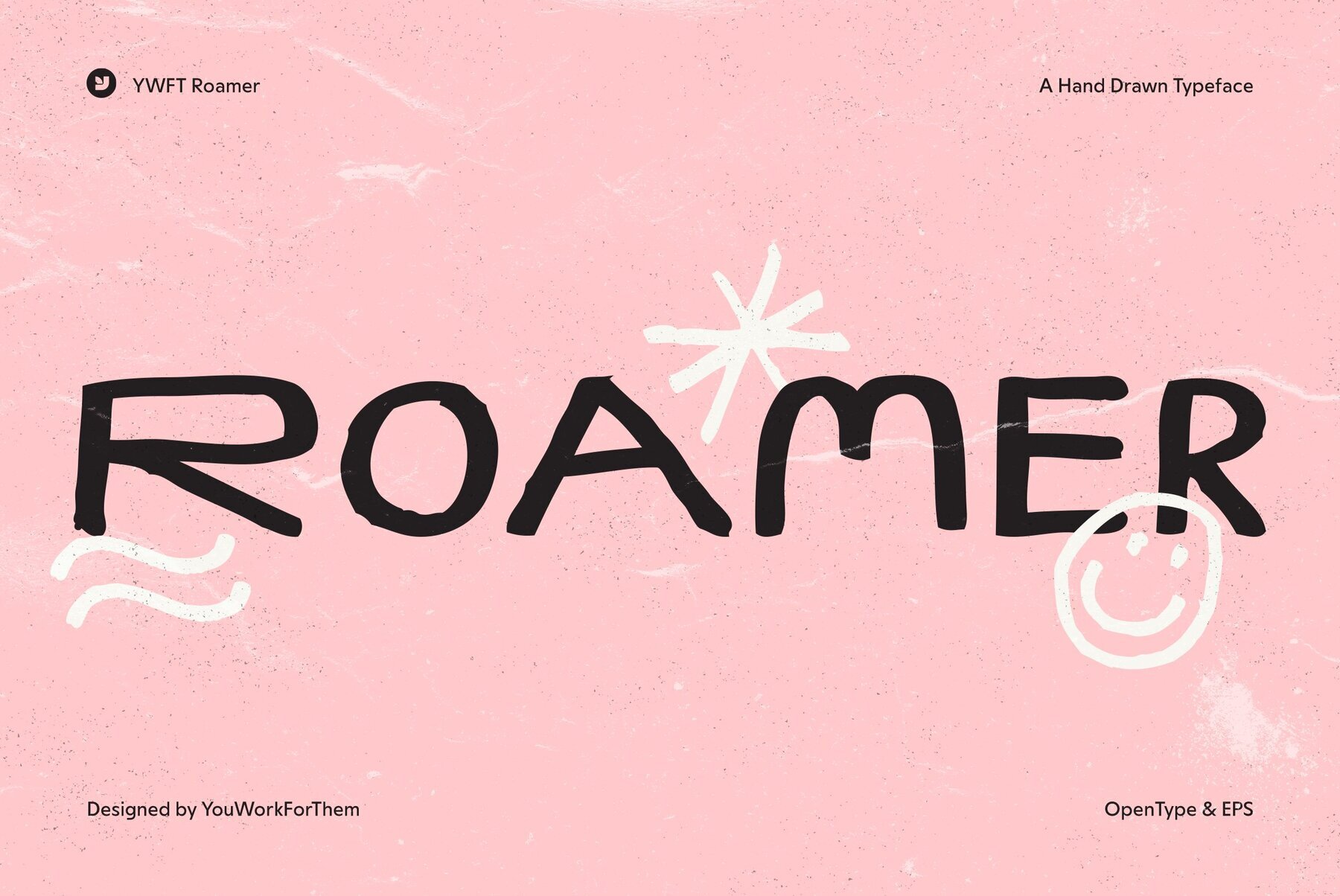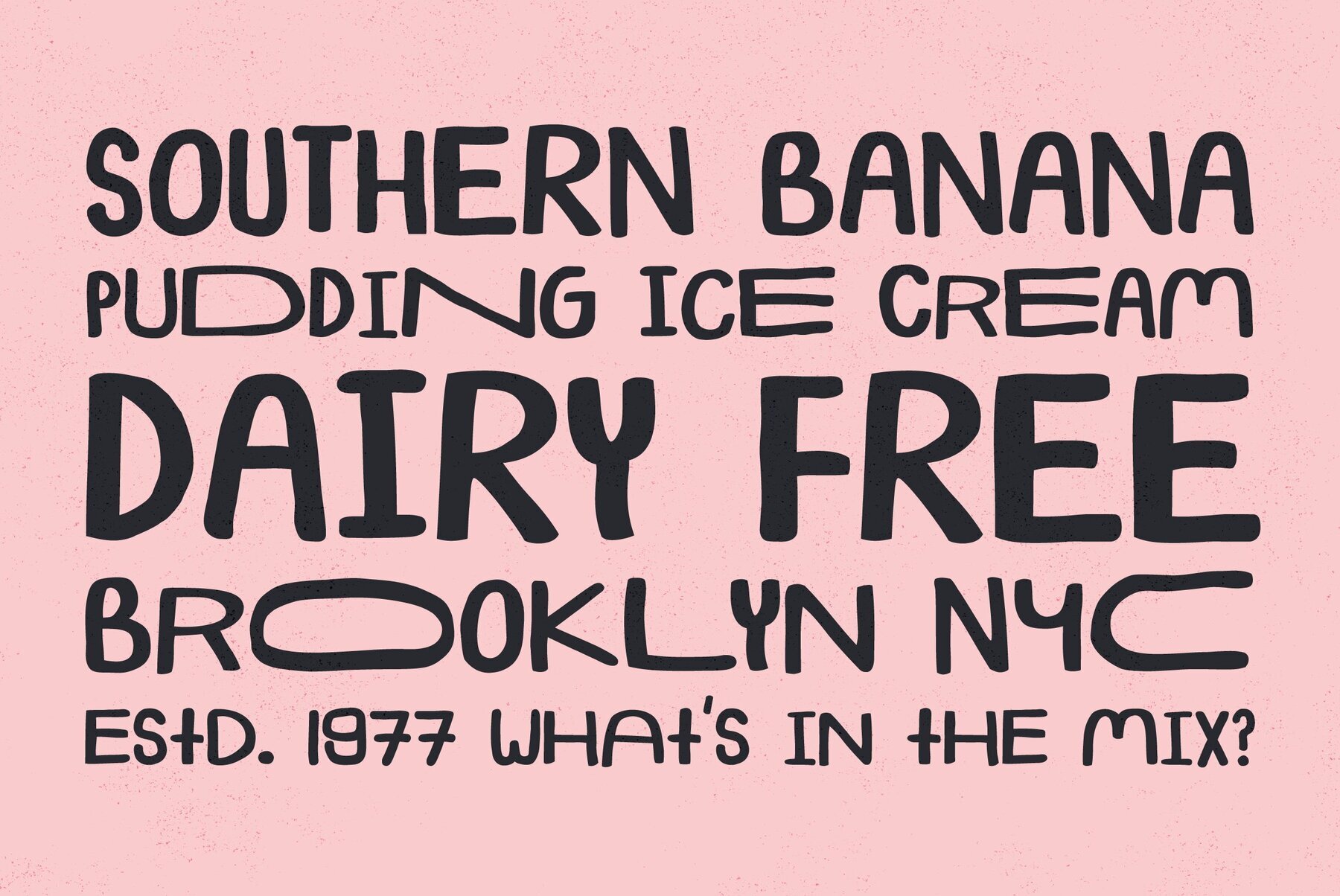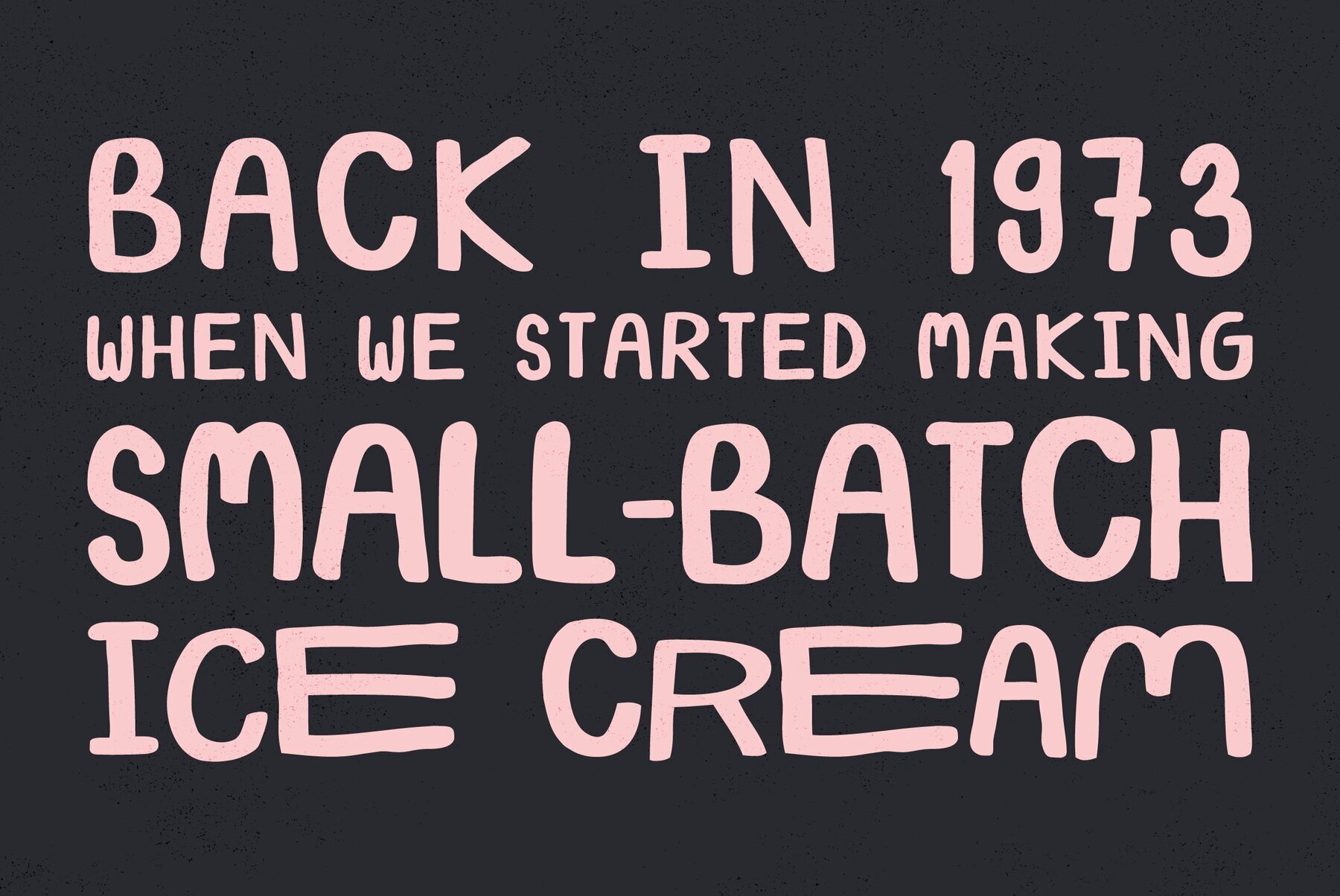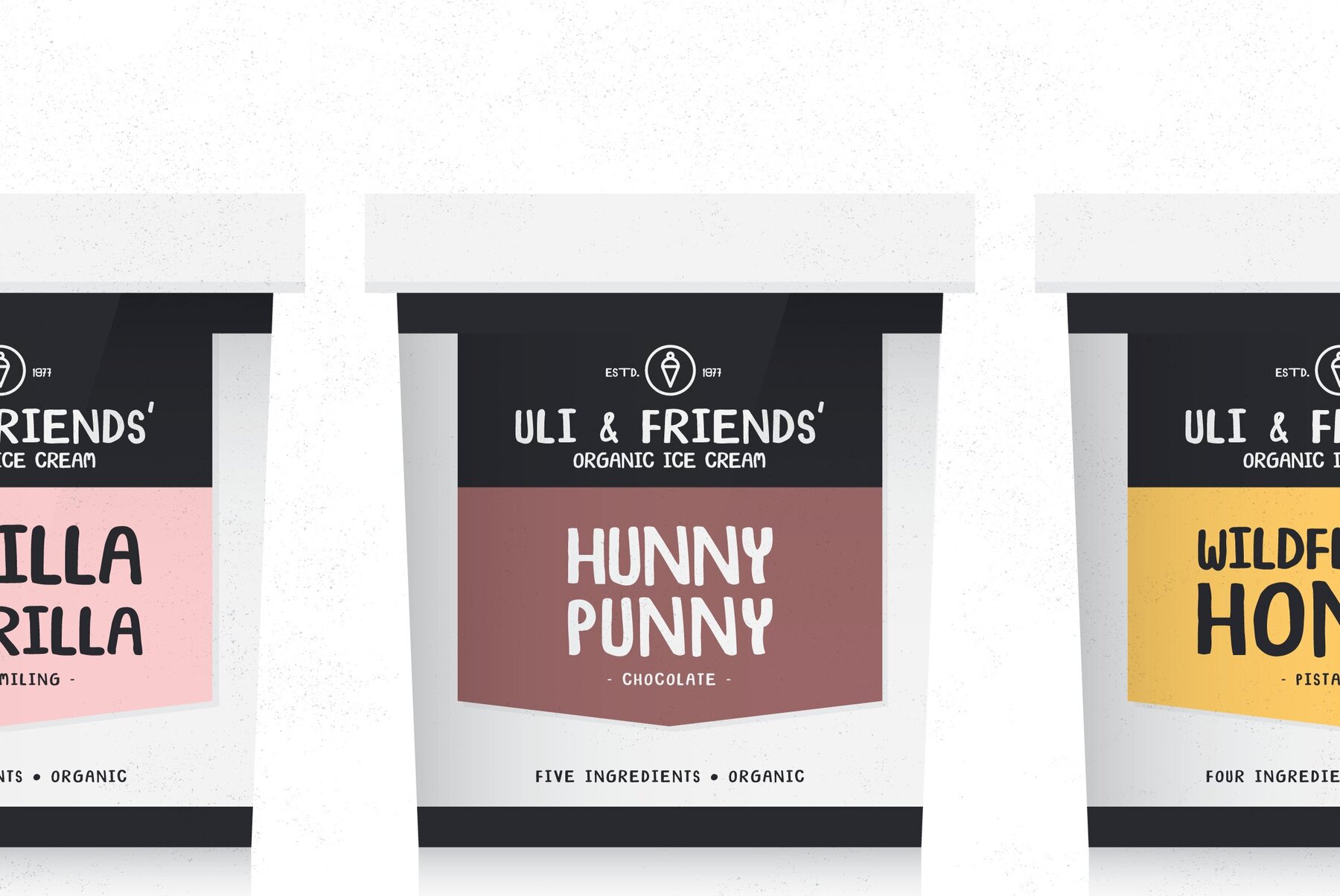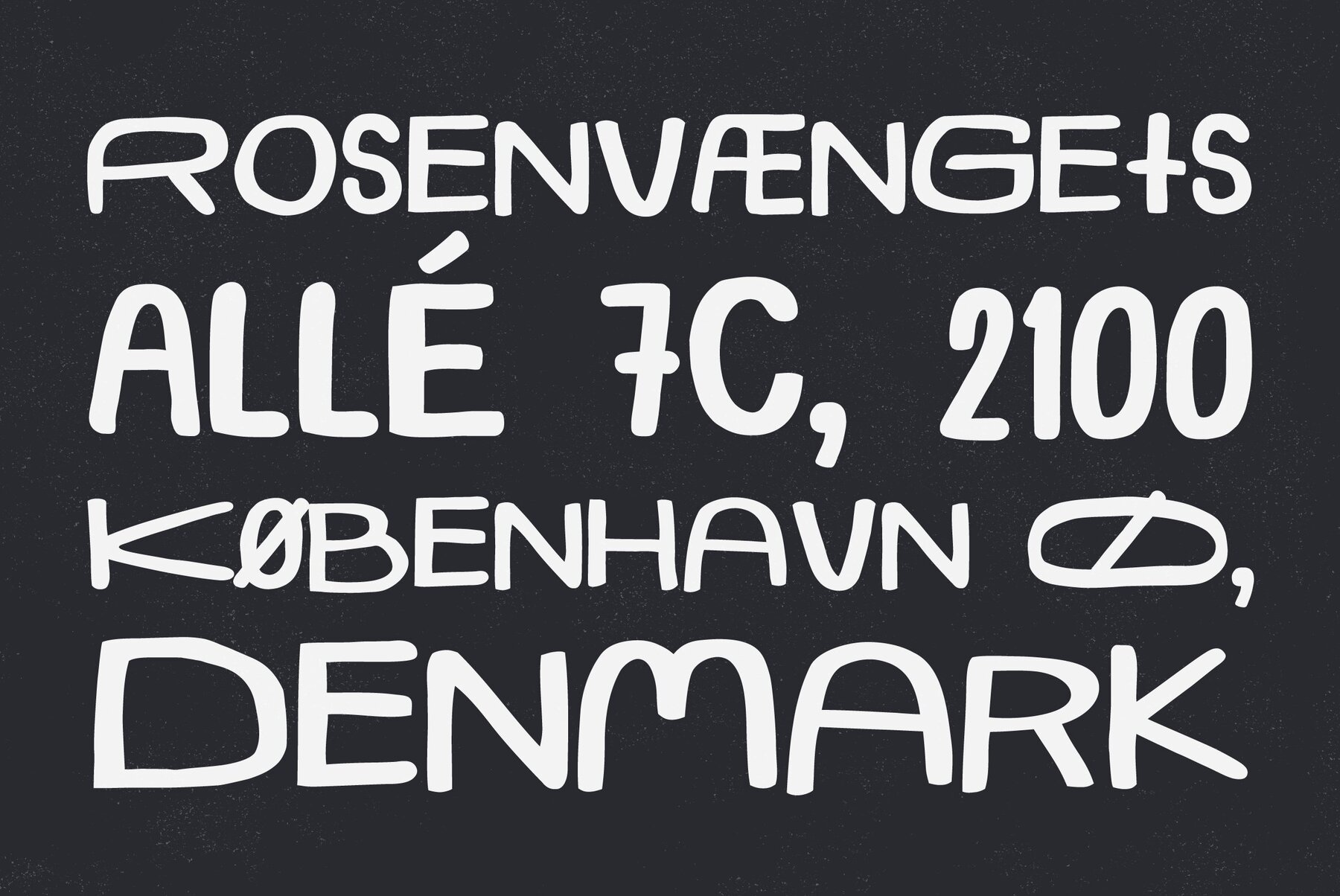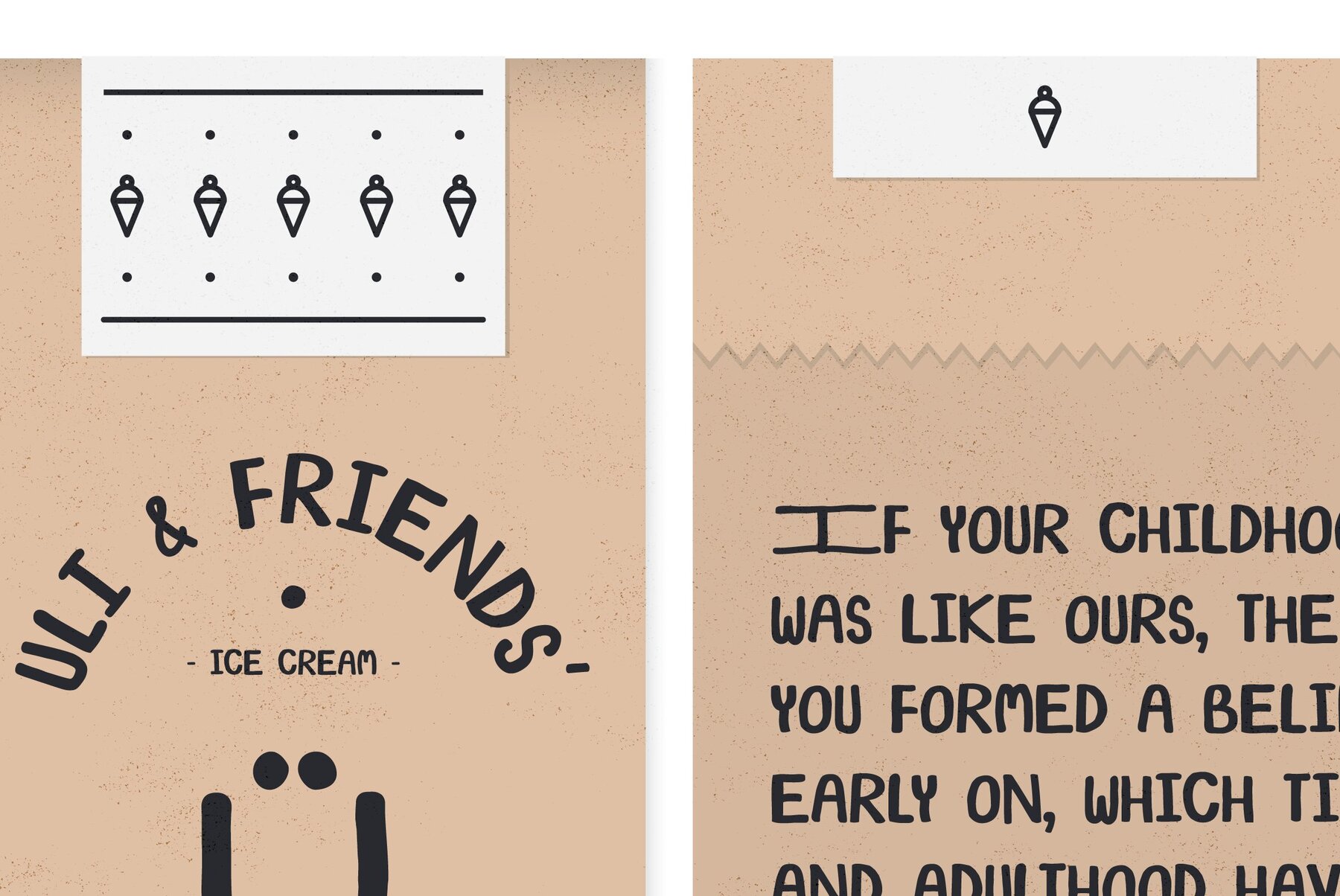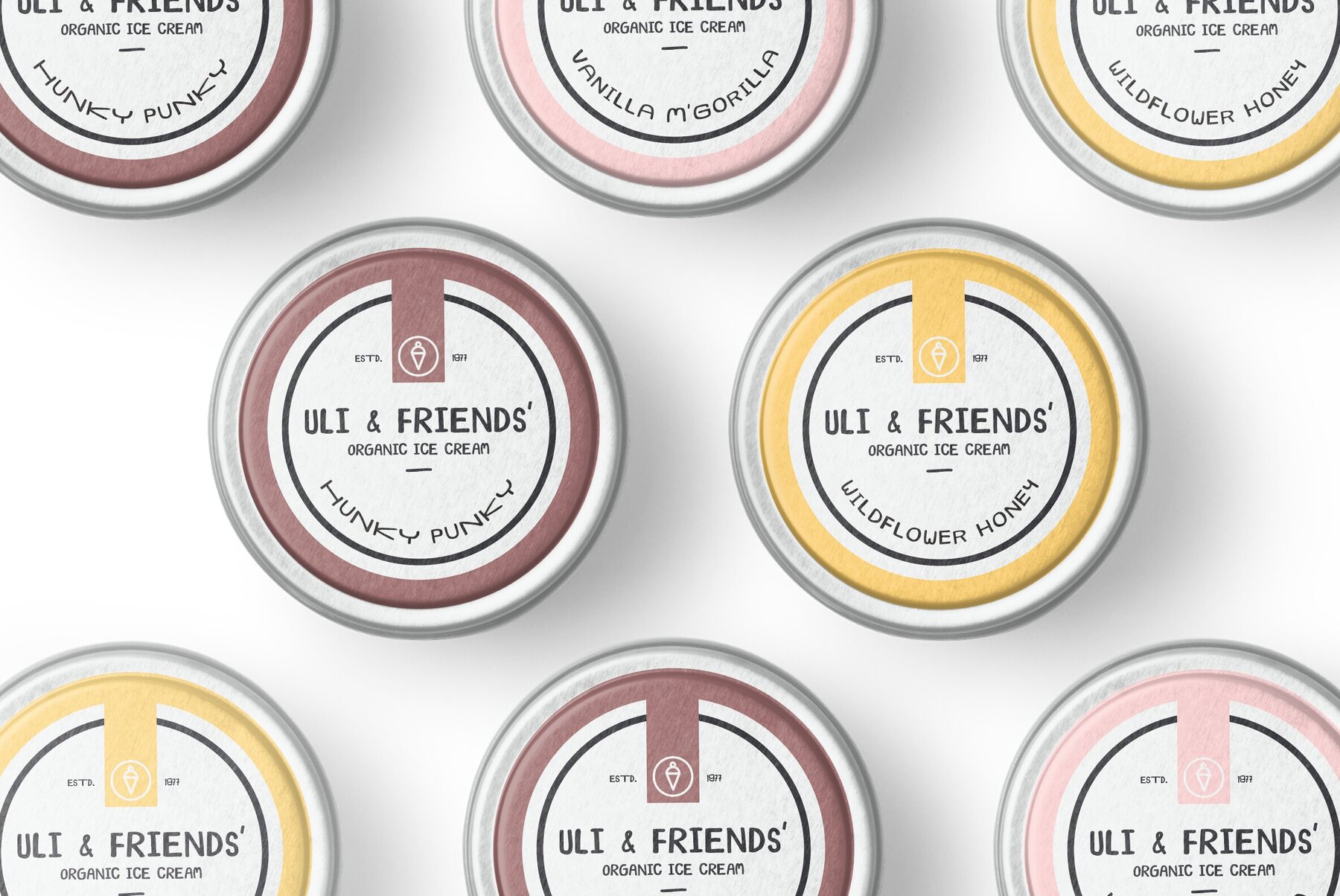
YWFT Roamer Font
Attention Roamers! Last call for train 001, boarding immediately at Track YWFT! You'll be off on a globetrotting adventure with this brand-new handset, designed right here in the YWFT mothership. YWFT Roamer takes its cue from traveling around the world with a backpack and a good dose of handwritten style, perfect for all sorts of striking graphical situations. Wheels up! Bonus: This item also includes a free EPS file of the original handset drawings. These drawings give you access to extra letters not contained in the OTF file, great for hand setting your own layouts.